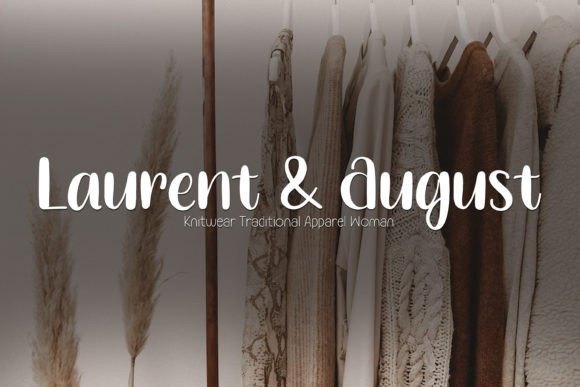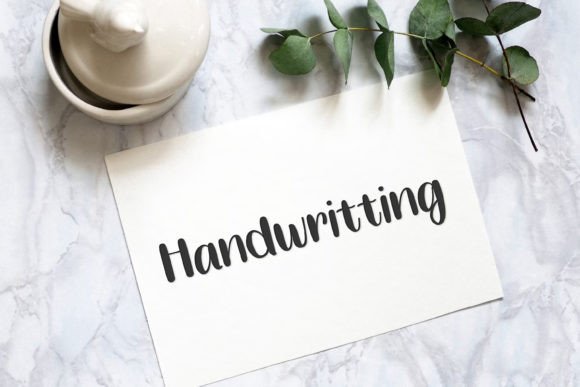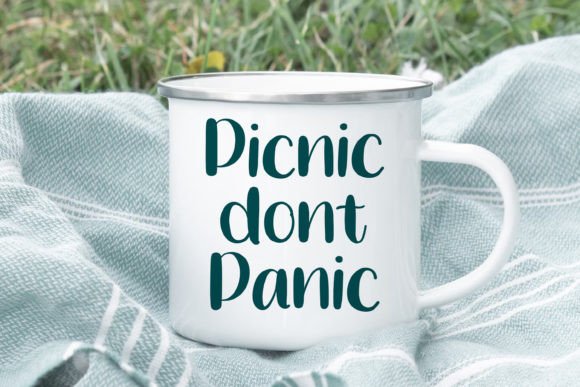
Introduction to Romance August Font
Have you ever stared at a blank page, pen in hand, waiting for the perfect words to flow? It’s that moment of creative block where a single font can make all the difference. For designers and creatives, the right font can elevate a project from good to great. That’s where the Romance August Font comes in – a beautiful, high-quality font that’s perfect for any creative project.
This stunning font is designed to evoke a sense of romance and elegance, making it ideal for wedding invitations, social media logos, and product packaging. With its free download and transparent background, designers can easily incorporate it into their designs without any hassle. Whether you’re working on a design project or just need a stylish touch for your social media posts, the Romance August Font is a valuable resource that’s sure to impress.
As a free download, the Romance August Font is a treasure trove of creative possibilities. With its versatile design, it’s perfect for labels, photography, watermarks, invitations, and stationery. So why settle for a generic font when you can add a touch of romance and sophistication to your designs with the Romance August Font?
Key Features of Romance August Font
- High-quality, elegant design ideal for creative projects
- Unique characteristics: cursive, handwritten, and script styles with a touch of romance and whimsy
- Perfect for wedding invitations, love letters, and other romantic-themed creative projects
Honest Review: Romance August Font
- ✨ High-quality design: The Romance August Font has a beautiful, elegant feel to it, making it perfect for creative projects that require a touch of sophistication.
- ✨ Transparent background: This feature allows for seamless integration with any background, giving designers more flexibility with their design choices.
- ✨ Versatile: The font can be used for a variety of projects, from wedding invitations to blog headers, making it a great all-around choice.
- ⚠️ Limited character set: The Romance August Font only includes a limited set of characters, which may not be suitable for projects that require a full range of characters.
- ⚠️ Not suitable for bold text: The font can appear a bit too delicate when used for bold text, which may not be ideal for projects that require a strong, bold aesthetic.
Overall, I’m impressed with the Romance August Font. It’s a great free download that can add a touch of elegance to any design project. While it may have some limitations, it’s still a valuable addition to any design resource collection.
Romance August Font
Tips for Getting the Most Out of Romance August Font
To get the most out of the Romance August Font, use it on designs with a transparent background to create a beautiful, elegant look. You can also pair it with other fonts to create a unique and creative design.
The Romance August Font is perfect for wedding invitations, greeting cards, and other romantic designs. It’s also great for creating elegant titles and headings for any creative project.